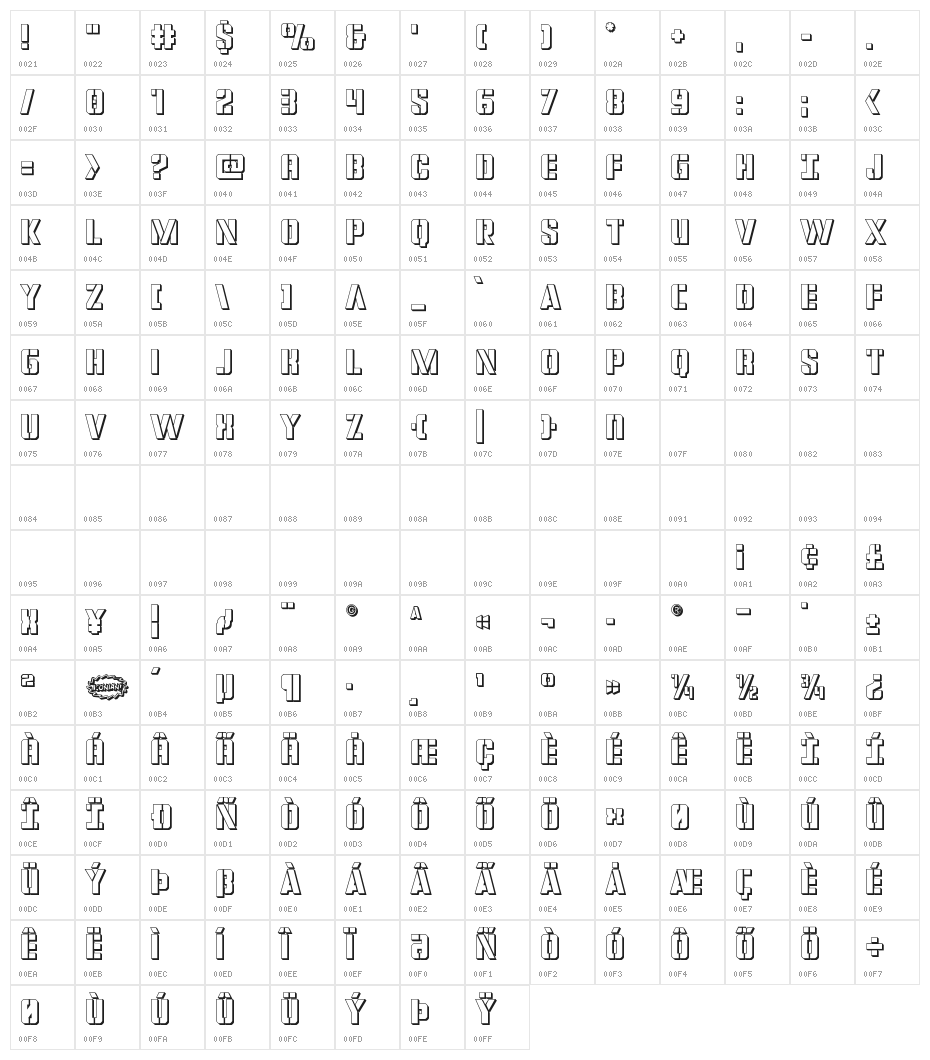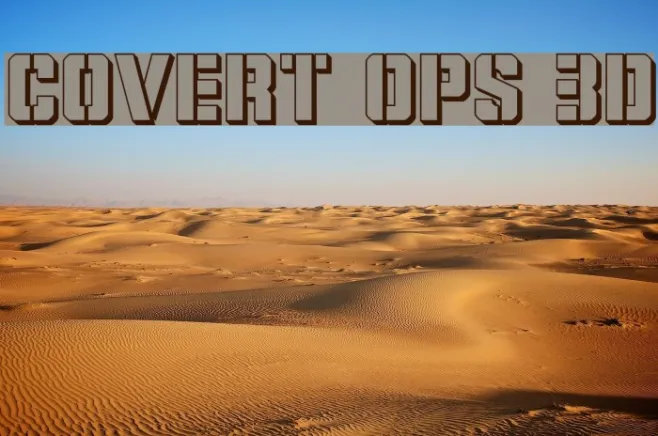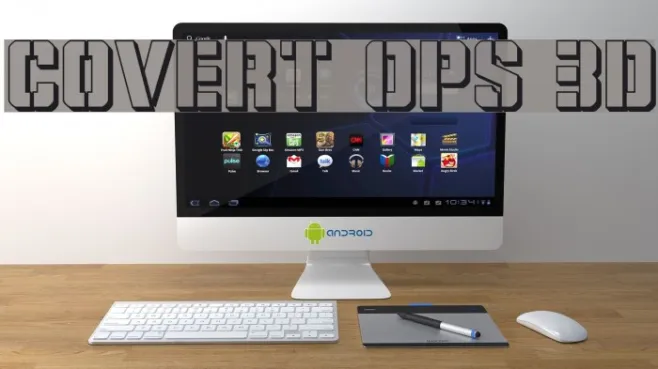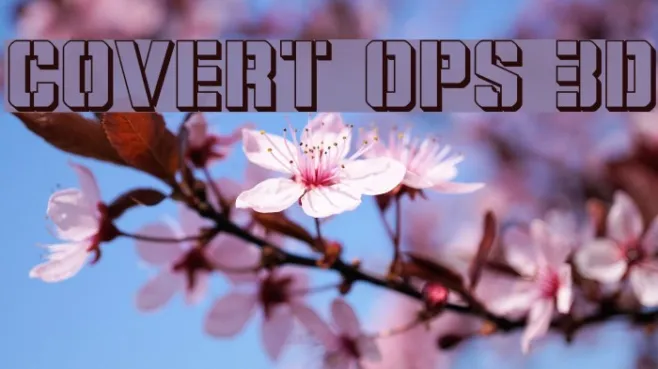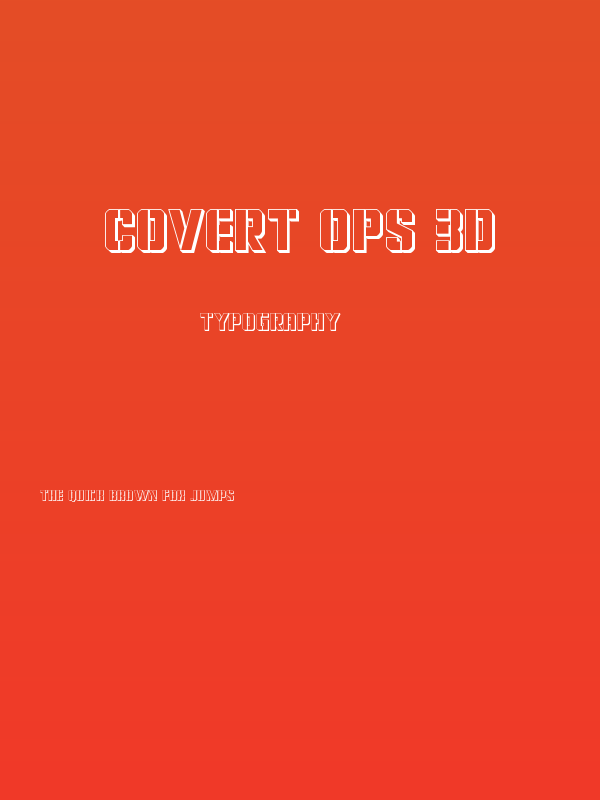
Covert Ops 3D Font
Covert Ops 3D Description
This font features a bold, three-dimensional design that gives each character a striking and impactful appearance. The letters are constructed with a solid, blocky style, enhanced by a shadow effect that adds depth and dimension. The geometric shapes are consistent throughout, providing a uniform and cohesive look. The uppercase and lowercase letters maintain the same structural integrity, while the numbers and special characters are designed to match the overall aesthetic. This font's unique 3D effect makes it stand out, making it ideal for attention-grabbing designs.
| Proposed Projects | Ideal for video game titles, movie posters, branding for tech companies, or any project needing a futuristic and bold appearance. |